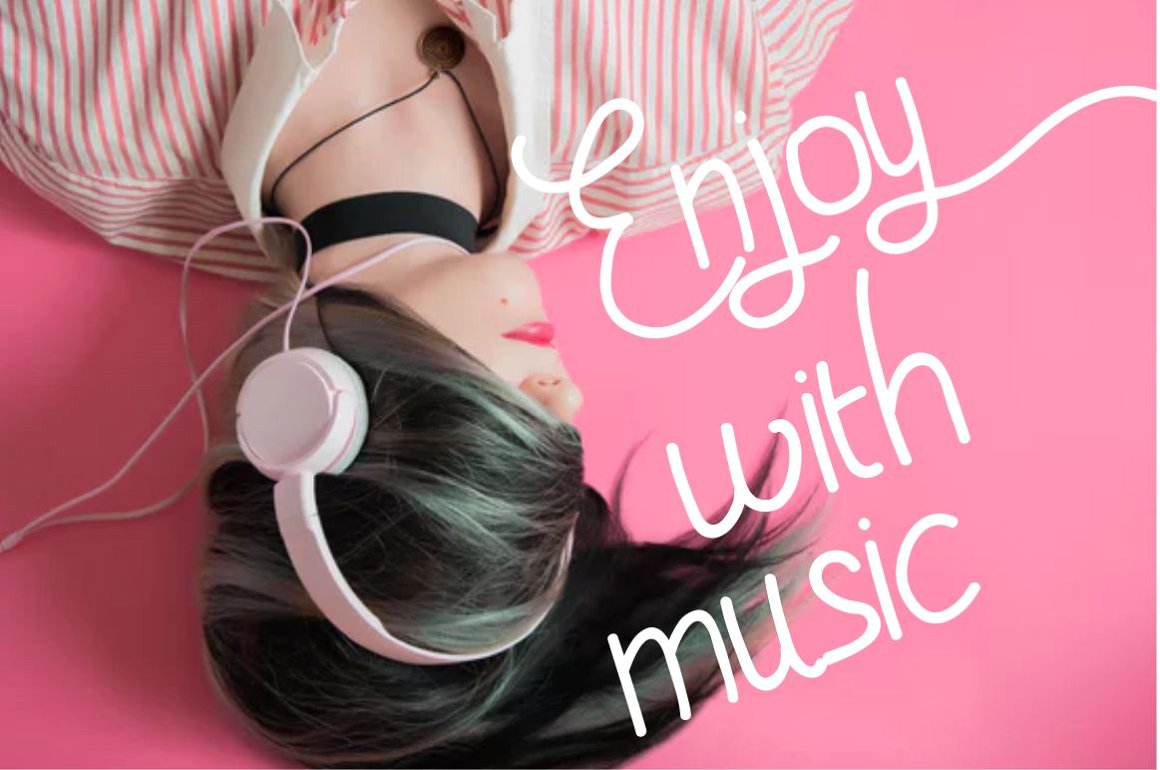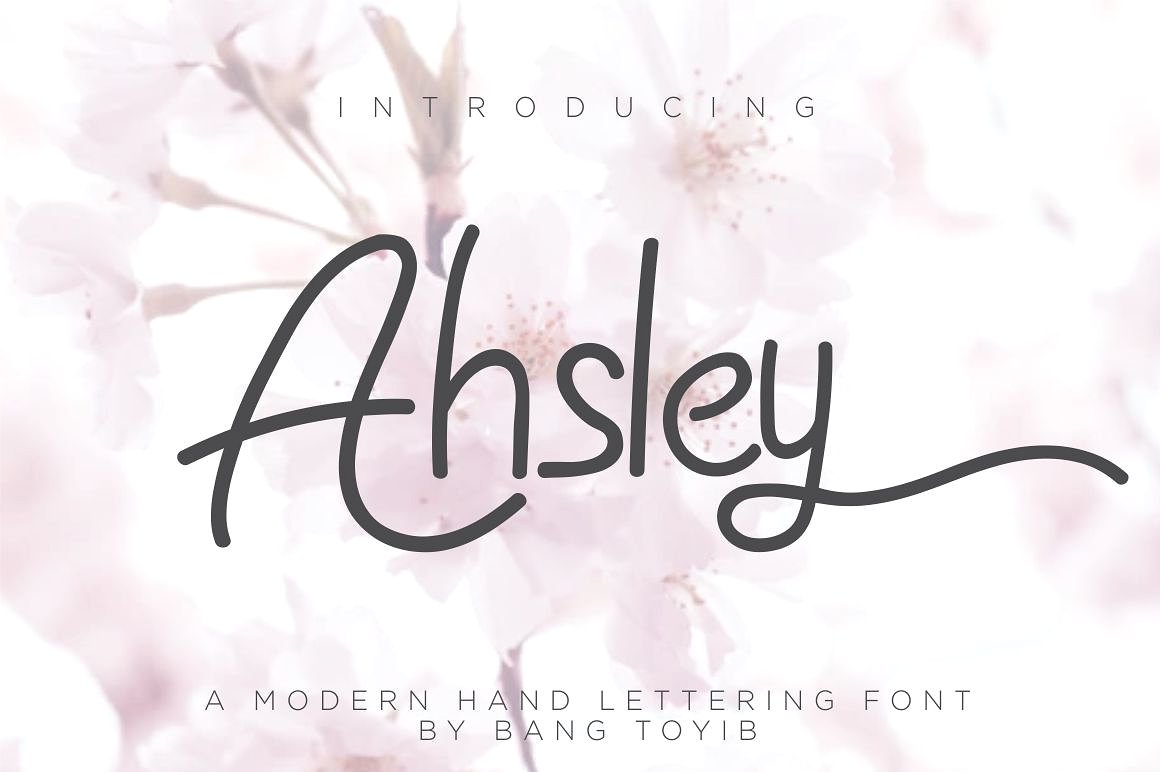
Ahsley Script
Ahsley Script Font
Ahsley is a beautiful font, with a bold weight perfect for adding some romance and charm to your designs. This script functions most strongly as a display or headline font. suitable for logo, logotype, branding,wedding, fashion, label, book cover, t-shirt, instagram post, and other